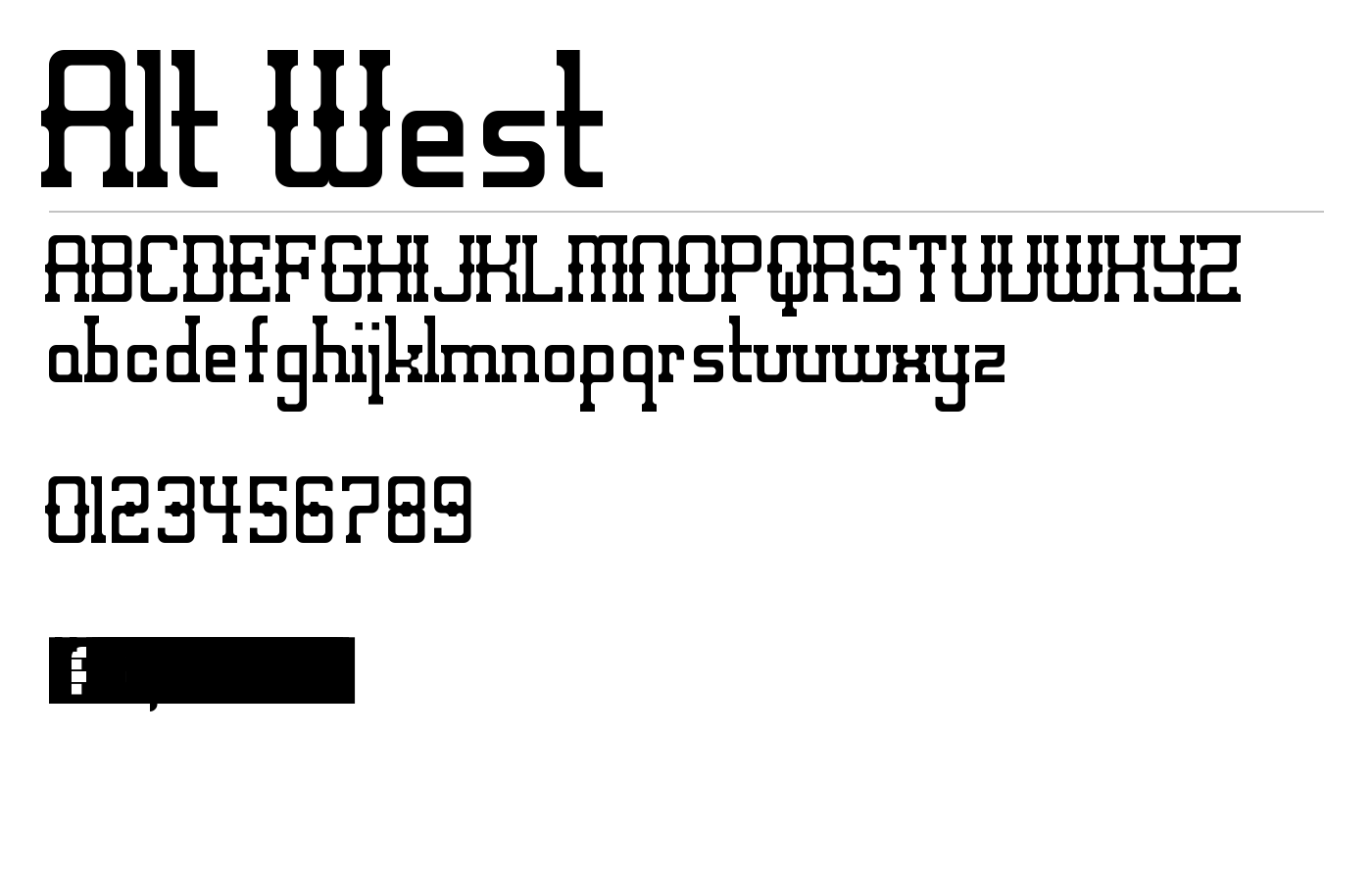
Alt West is a bold slab serif font with a distinctive, vintage-inspired style that evokes the rugged feel of the American frontier. Its sturdy letterforms feature strong, blocky serifs with subtle bracketed curves, combining a mechanical structure with an old-west charm. This font works wonderfully for creating impactful logos, posters, and headlines where a nostalgic yet bold statement is desired.
Alt West Font
About Alt West Font